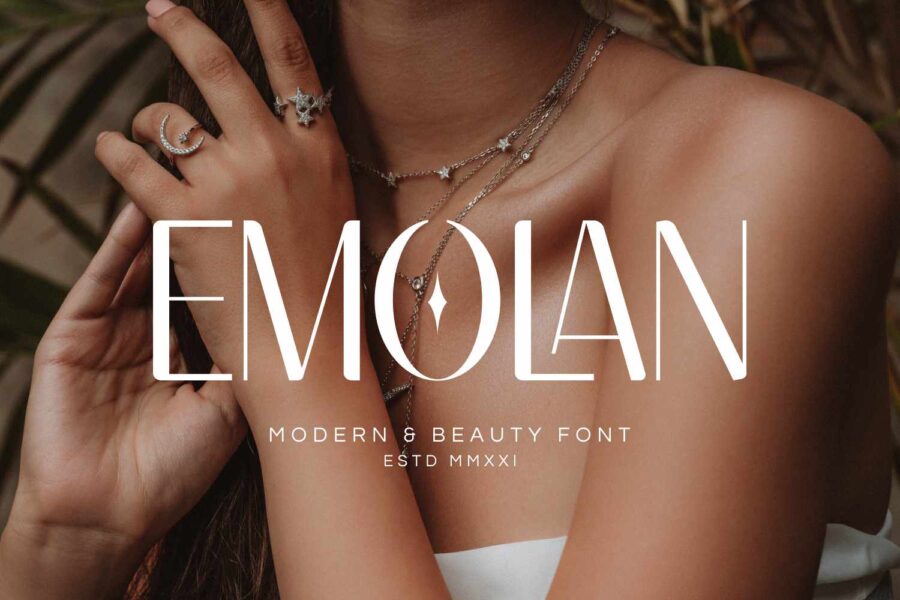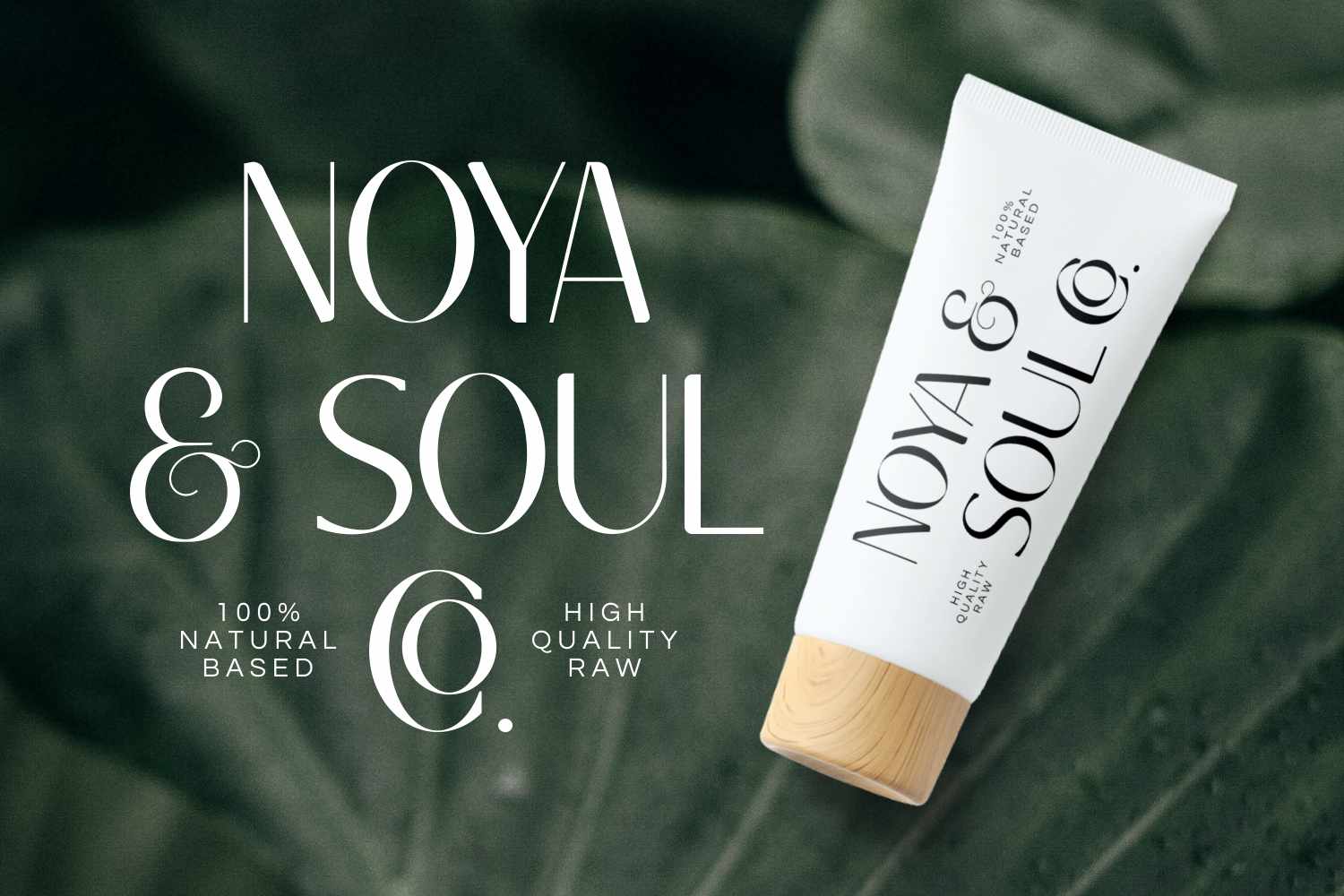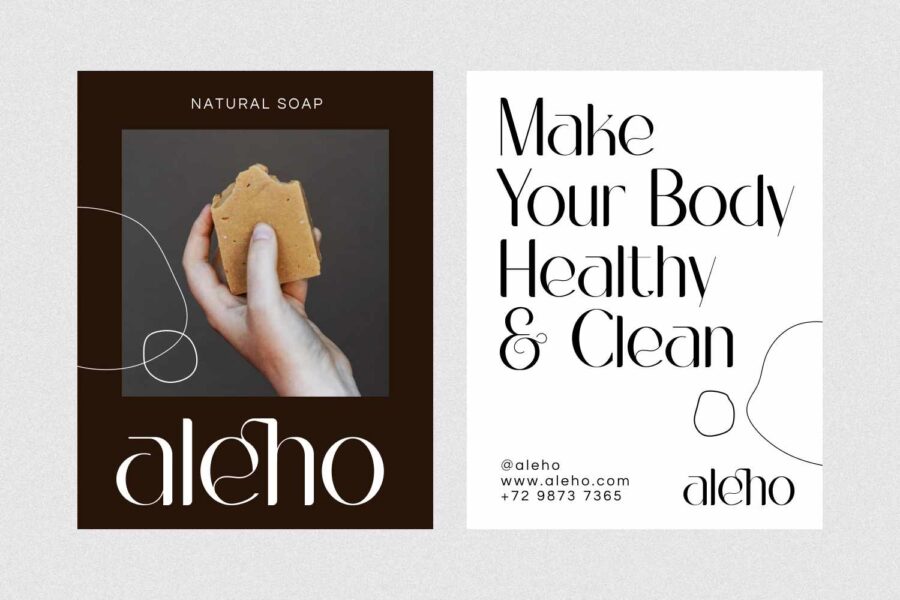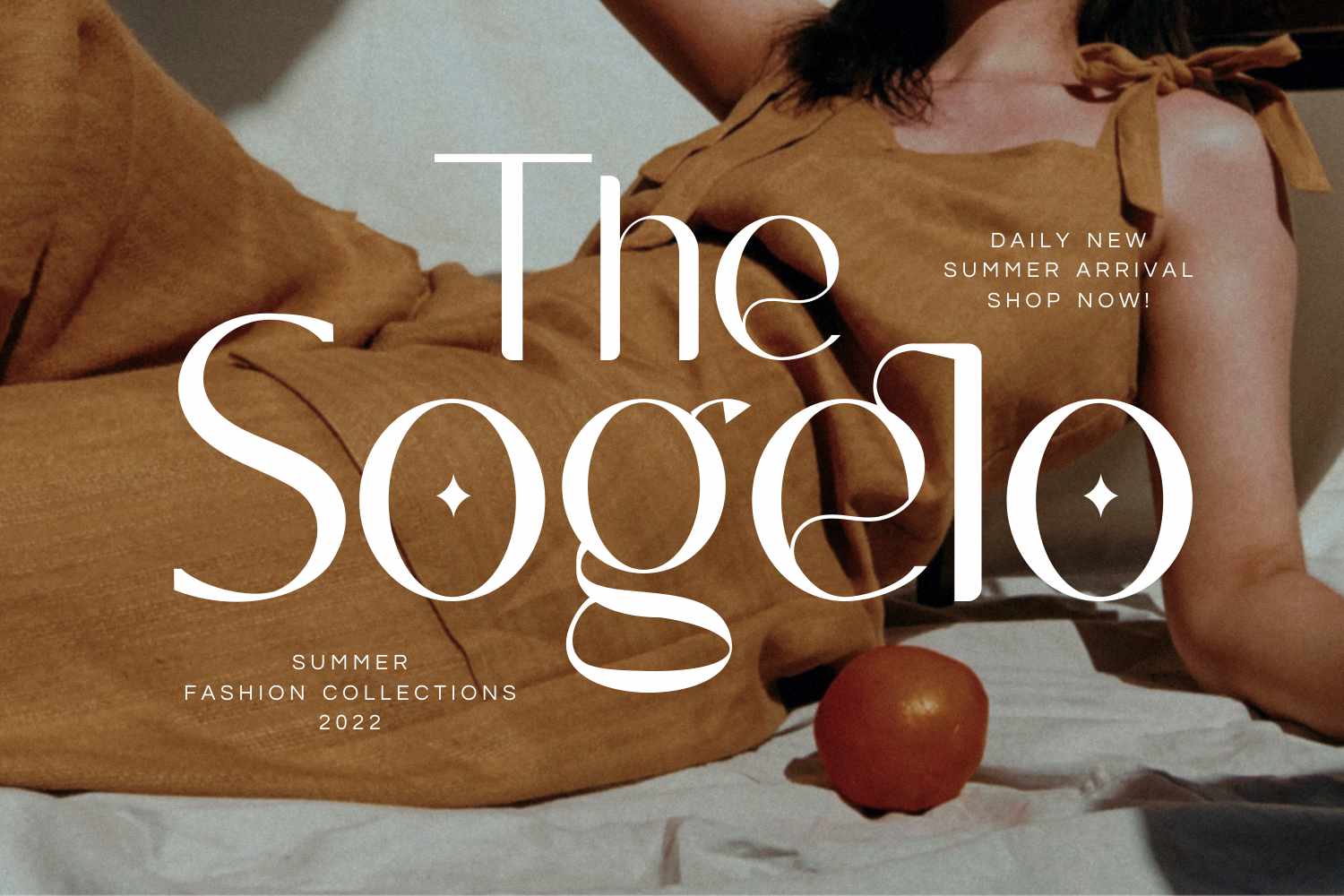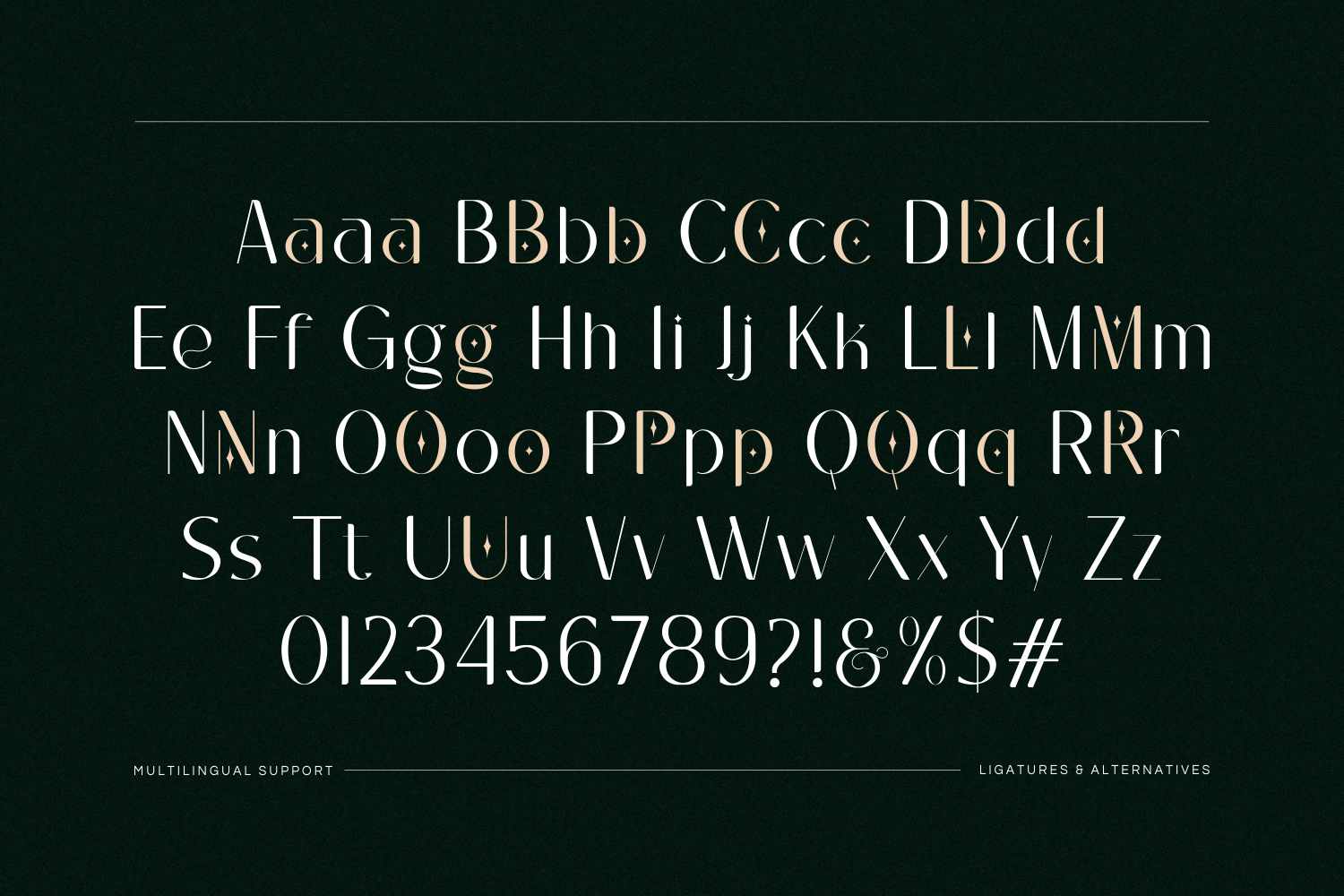
Emolan
Emolan is a modern and elegant display font designed to elevate fashion, beauty, and lifestyle branding. Its graceful curves and high-contrast strokes exude a luxurious charm, making it ideal for upscale logos, magazine headlines, packaging, and jewelry campaigns. Each character is crafted with attention to form, combining minimalism with a distinctive flair, especially noticeable in its custom ligatures and unique stylistic alternates.
With multilingual support and a full character set, Emolan adapts seamlessly to global design needs. Whether you’re curating a high-end skincare label or launching a fashion collection, this font brings a polished and contemporary feel. Its aesthetic balance makes it perfect for both feminine and editorial themes, giving your brand a timeless sophistication.